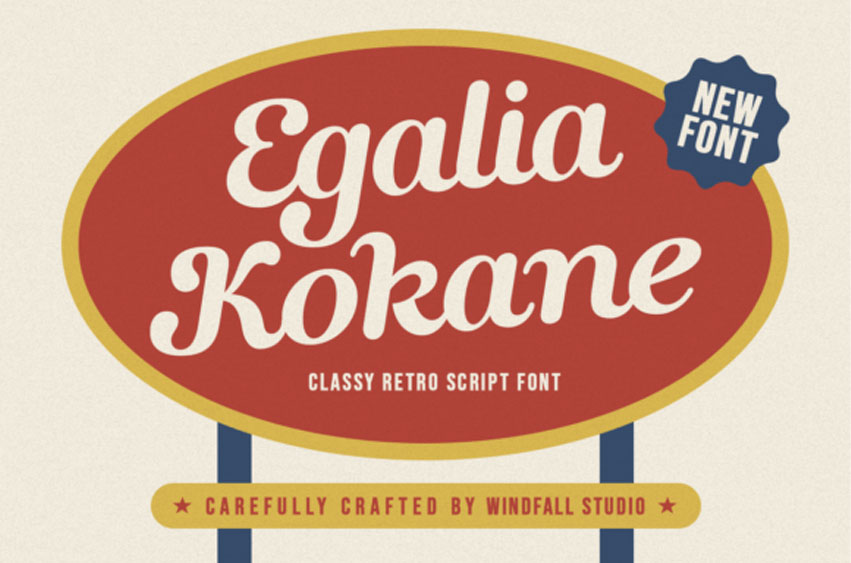
Egalia Kokane Font is a classy retro script font from Windfall Studio. This carefully crafted typeface blends elegance and nostalgia, making it the perfect addition to your design toolkit. Whether you’re working on vintage-themed projects, looking for a stylish script, or need a touch of retro flair, Egalia Kokane has you covered.
Egalia Kokane isn’t just a script font; it’s a journey back to a time of stylish, retro design. Whether you’re creating a bold headline, an elegant wedding invitation, or a minimalist branding project, this font fits the bill. The handcrafted quality ensures that every letter is perfect, providing a clean, professional look.
Looking for something with a touch of nostalgia? Egalia Kokane’s vintage appeal is perfect for adding that retro flair to your designs. It’s also an excellent choice for those seeking decorative fonts for monograms, calligraphy, or even tech-inspired projects. The stylish and elegant design makes it versatile enough to fit any project, whether you’re aiming for a modern or timeless look.